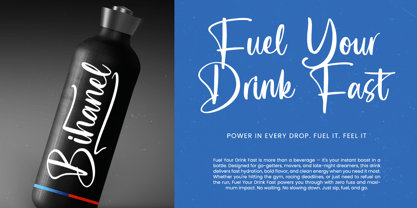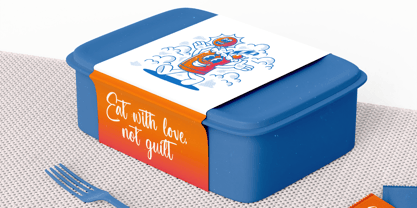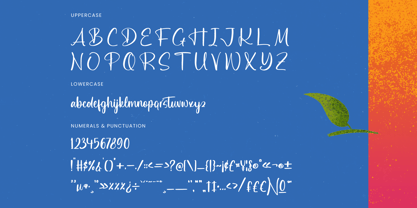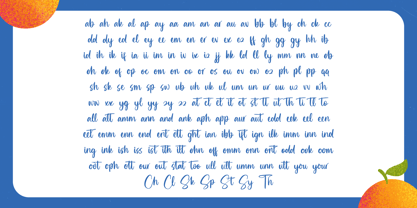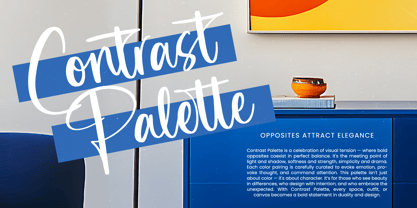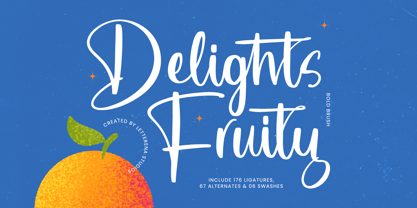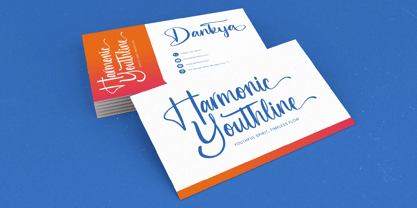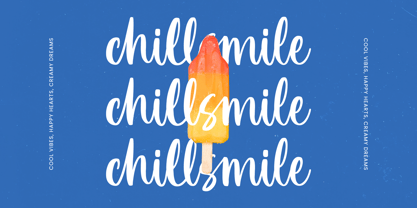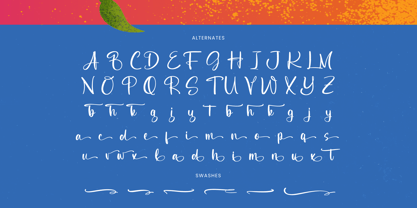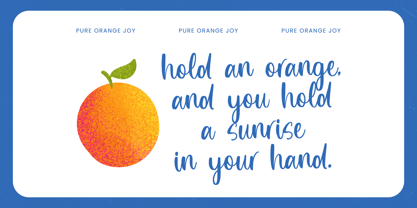
Delights Fruity
The Delights Fruity Font Family was designed by Heru Utama Putra and published by Letterena Studios. Delights Fruity contains 2 styles and family package options.
Delights Fruity – Bold Brush Font , from Letterena, is a Luxury Script font, suitable for any projects such as: logos, branding projects, homeware designs, product packaging, mugs, quotes, posters, shopping bags, t-shirts, book covers, name card, invitation cards, greeting cards, label, photography, watermark, special events, and all your other luxury and beautiful projects that need a Luxury Script taste.